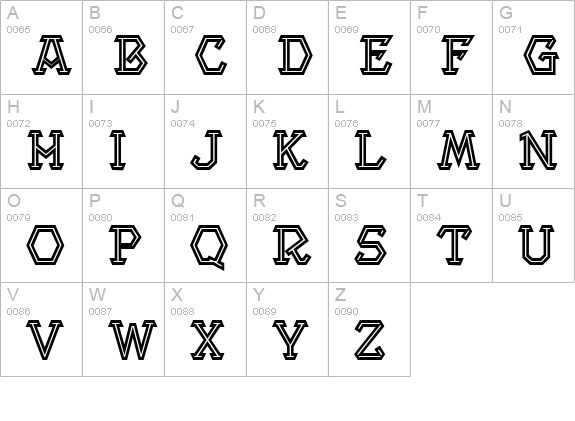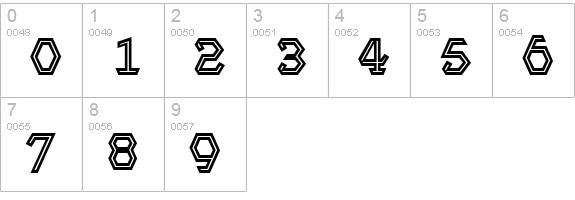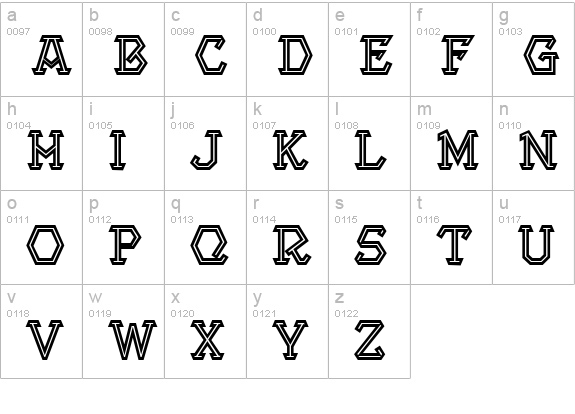
ProjectBold Inline Font Details
ProjectBold Inline font is a modern and eye-catching typeface that exudes confidence and boldness. Its sleek lines and contemporary design make it perfect for projects that require a strong and impactful visual presence. This versatile font can be used for a variety of purposes, from branding and advertising to web design and editorial content. The best part? ProjectBold Inline font is available for free download at FontsMarket.com. This means you can easily access this high-quality font without any cost, making it a valuable resource for designers and creatives looking to make a statement with their typography. Don't miss out on the opportunity to enhance your projects with the striking and dynamic ProjectBold Inline font. Download it today and unleash your creativity!